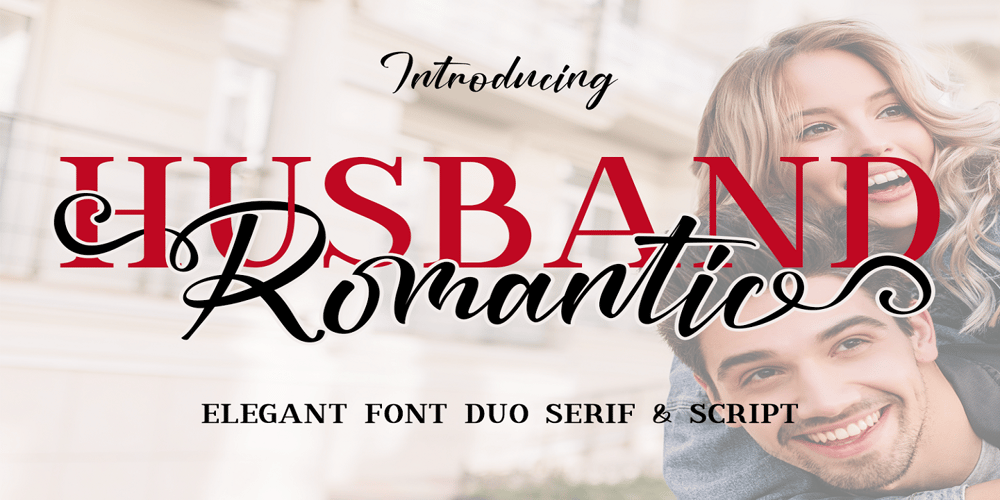
Romantic Font Family was designed by Saiful Anwar and published by Sealoung. Romantic contains 2 styles and family package options. Husband Romantic is a lovely and elegant duo font (script and serif). It can easily be matched to an incredibly large set of projects, so add it to your creative ideas and notice how it makes them stand out!Husband Romantic is PUA encoded which means you can access all of the glyphs and swashes with ease!